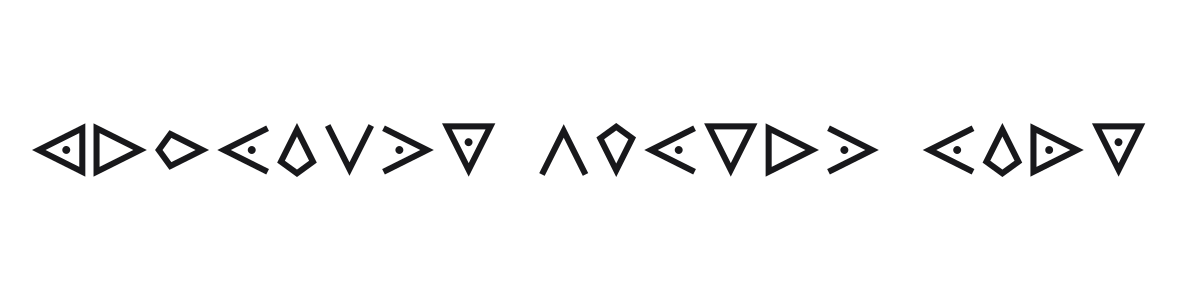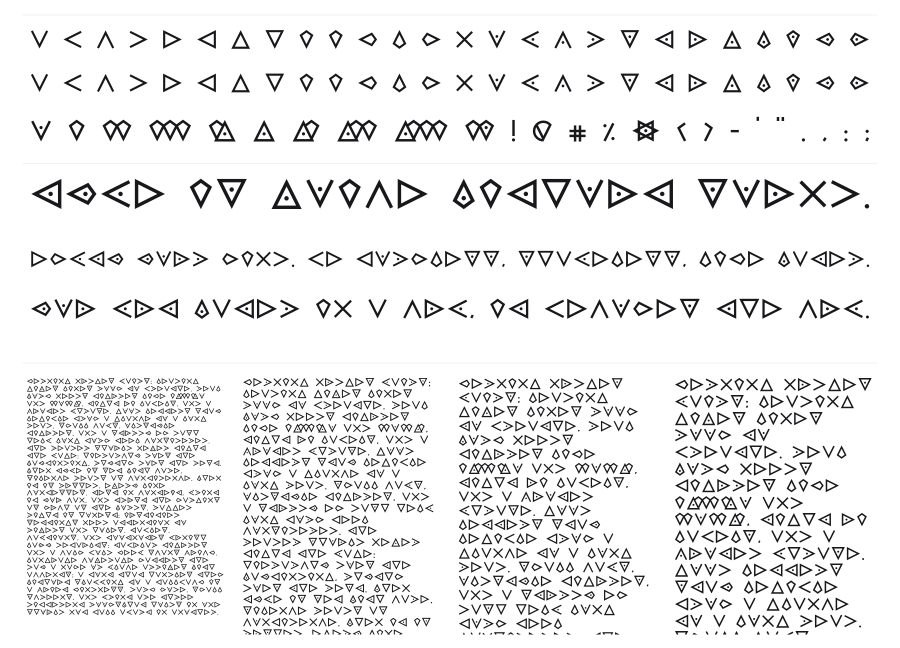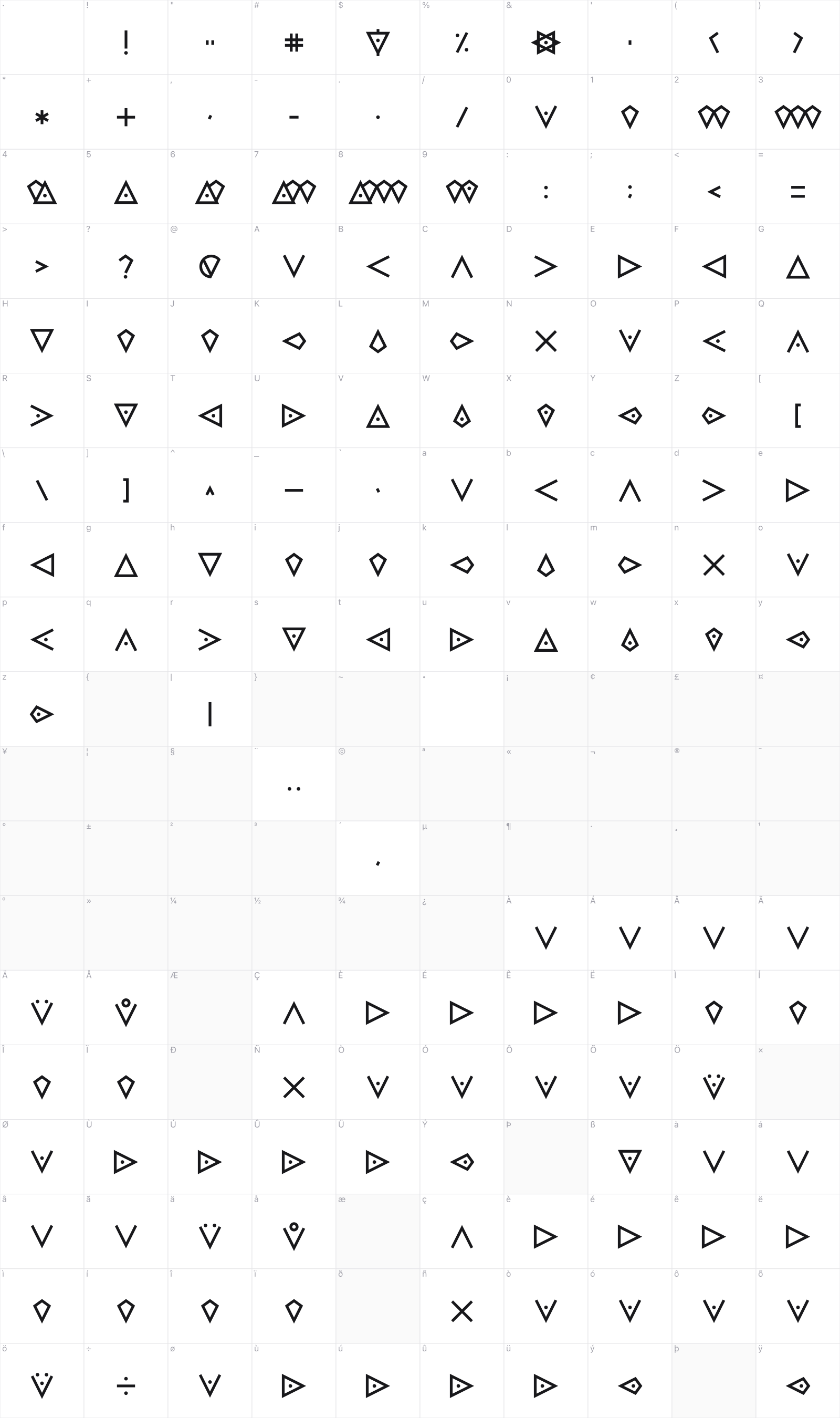
Templars Cipher Plus
Templars Cipher Plus is a symbol font digitizing the historical substitution cipher attributed to the Knights Templar, where each letter maps to a geometric fragment of the Maltese Cross. The characters are thin, angular shapes — chevrons, arrows, and diamond forms — drawn with consistent monoweight strokes and sparse, geometric precision. It includes extra symbols beyond the historical cipher that complement the overall aesthetic.